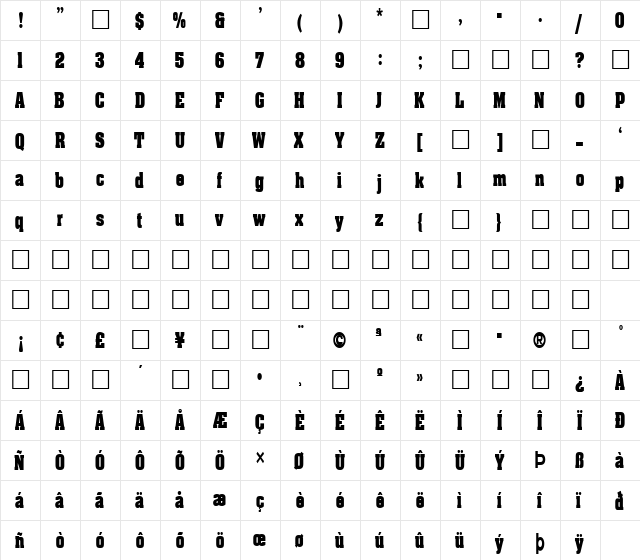
FZ ROMAN 3 COND Light
Design Context for FZ ROMAN 3 COND Typeface
FZ ROMAN 3 COND is a composed and adaptable typeface that performs quietly and consistently across a wide range of design contexts. Its slender proportions lend an understated elegance to any composition. The condensed width makes it efficient for tight spaces without sacrificing legibility.